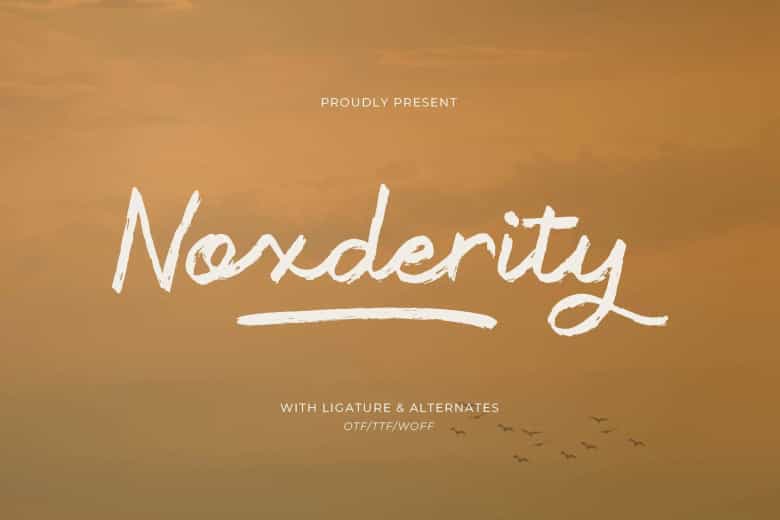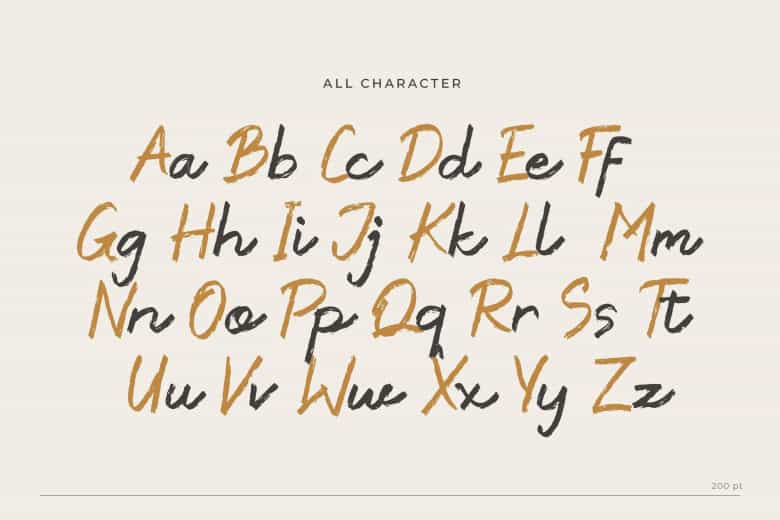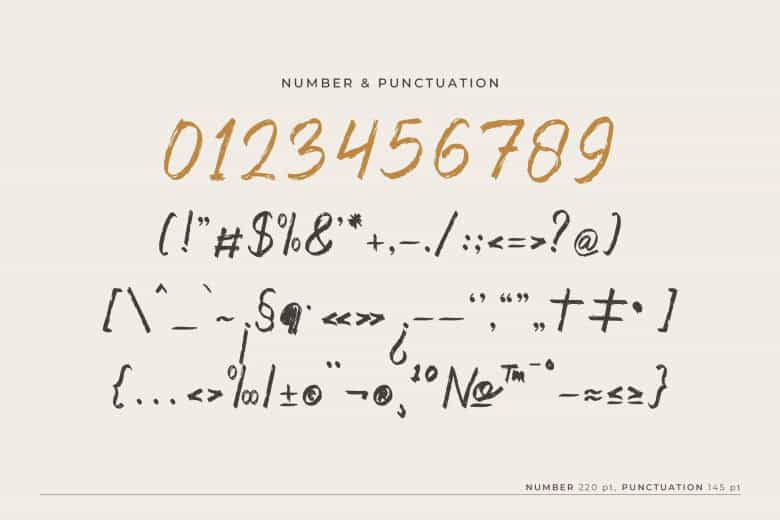
Noxderity Brush Font from Gracetypestudio can be used for a variety of designs, including logos, branding, design for packaging of products, homeware and mugs posters, quotes bags for shopping, t-shirts, book covers, name cards greeting cards, invitation cards, labels and watermarks, photography occasions, special events and many other projects that require a stunning script style.